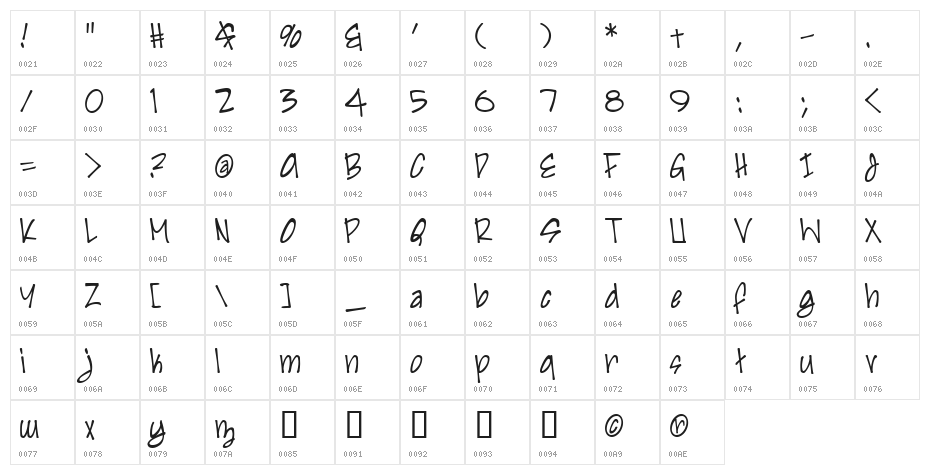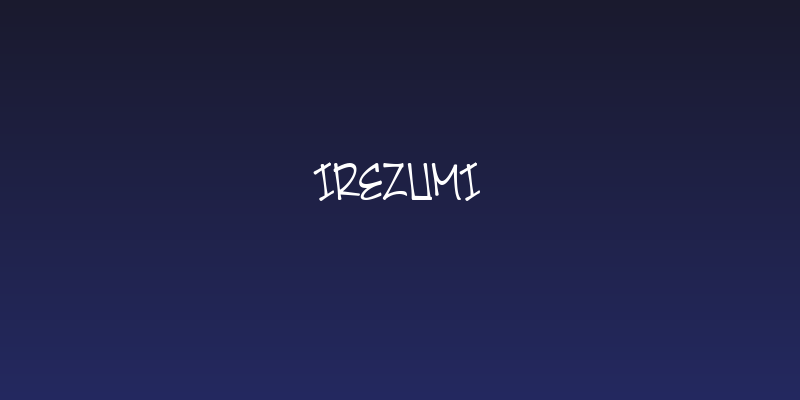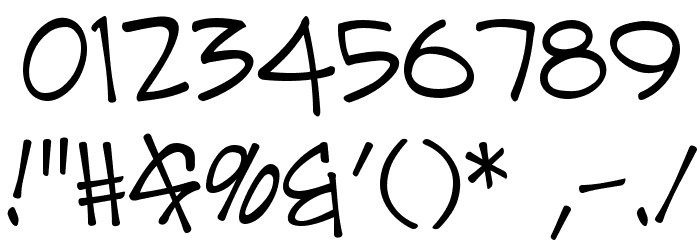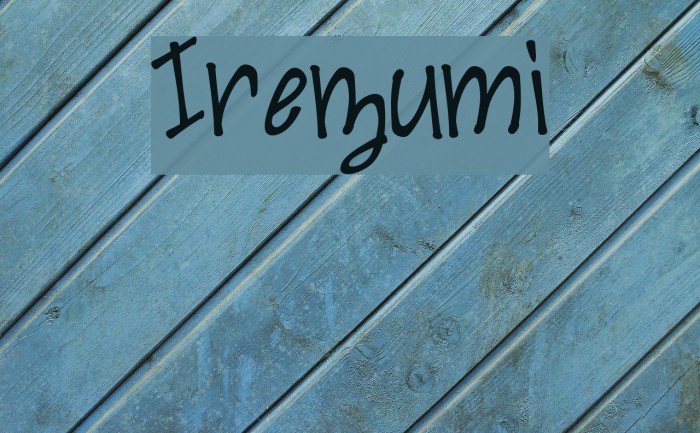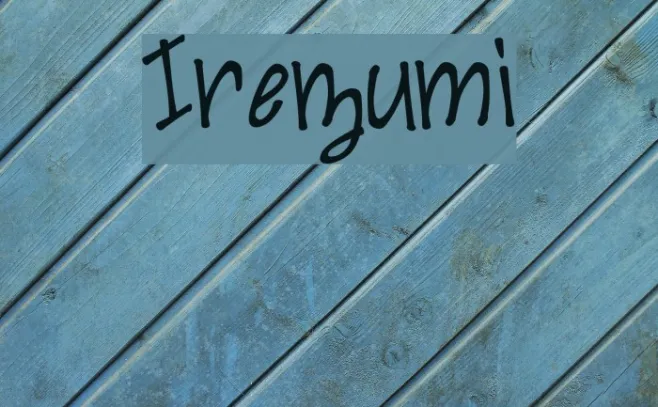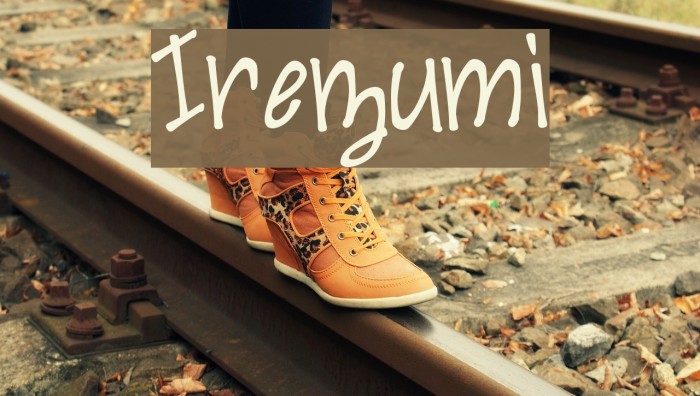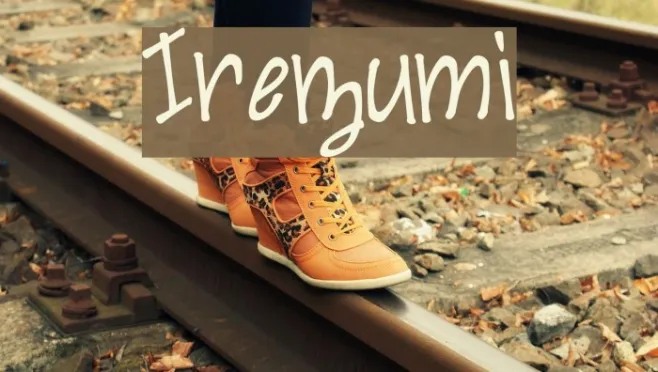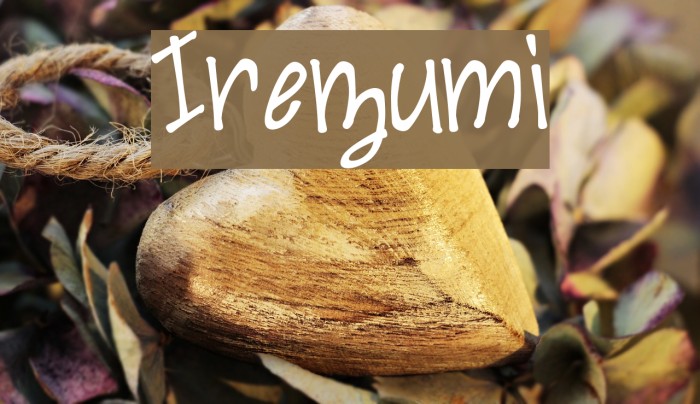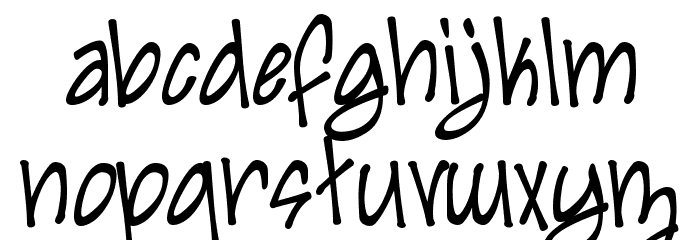
Irezumi Font
Irezumi Description
This font features a bold, handwritten style with a playful and casual appearance. The letters are slightly slanted, giving it a dynamic and energetic feel. The strokes are thick and consistent, providing a strong presence on the page. The characters are well-spaced, allowing for easy readability despite the informal style. This font includes both uppercase and lowercase letters, numerals, and a variety of special characters, making it versatile for different design needs. Its unique style is reminiscent of graffiti or street art, adding an urban and contemporary touch to any project.